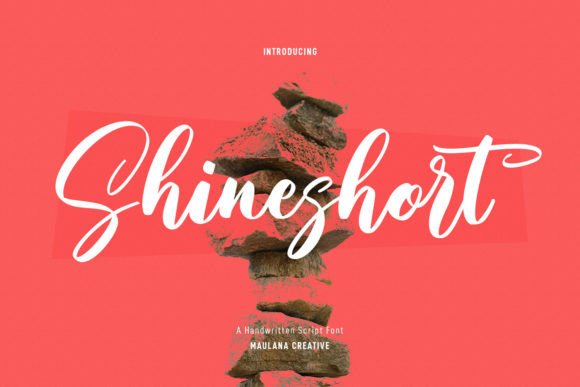
Prepare to be amazed by Shineshort, the mesmerizing handwritten font that exudes elegance and sophistication. Its natural flow and captivating style will transport your creative projects into the realm of art.
Immerse yourself in the beauty of Shineshort, a script font that dances across your screen, capturing the essence of modern calligraphy. With its delicate curves and graceful strokes, Shineshort adds an aura of timeless charm to your designs.
Whether you're crafting a modern logo, designing a stunning invitation, or creating eye-catching social media posts, Shineshort rises to the occasion, adding a touch of class and distinction. Let your imagination soar as you explore the endless possibilities that await you with this extraordinary font.
Shineshort is not just a font; it's an experience. It evokes emotions, conveys messages, and captivates audiences. Its versatility knows no bounds, adapting seamlessly to a wide range of creative endeavors.
Make Shineshort your go-to choice for adding a touch of refinement to your projects. Its elegant simplicity and captivating charm will leave a lasting impression on your audience, ensuring that your creations stand out from the crowd.
Don't settle for ordinary fonts. Embrace the beauty of Shineshort and unlock the door to a world of creative possibilities. Let your designs shine with the brilliance of this exceptional font.